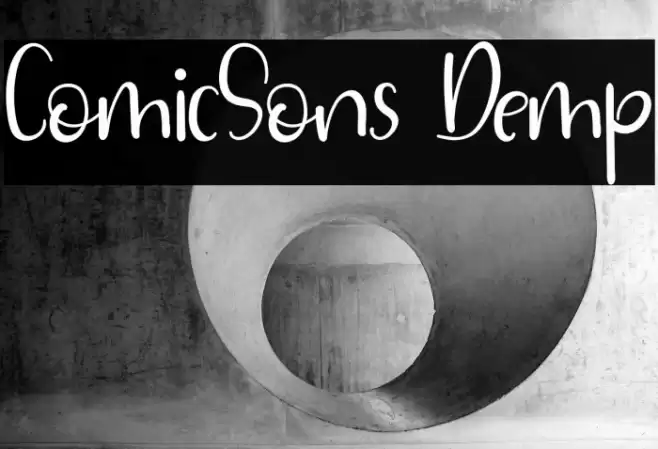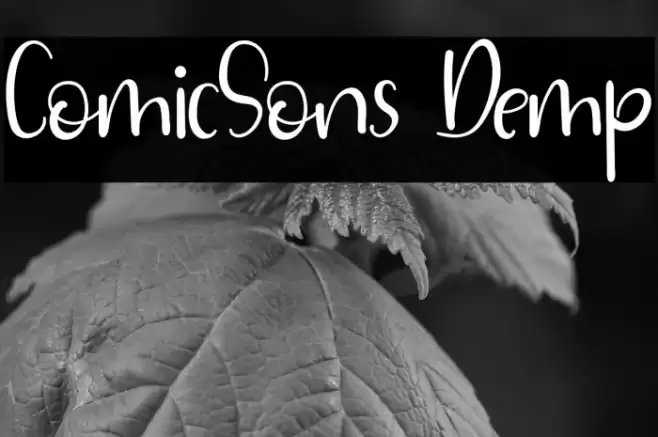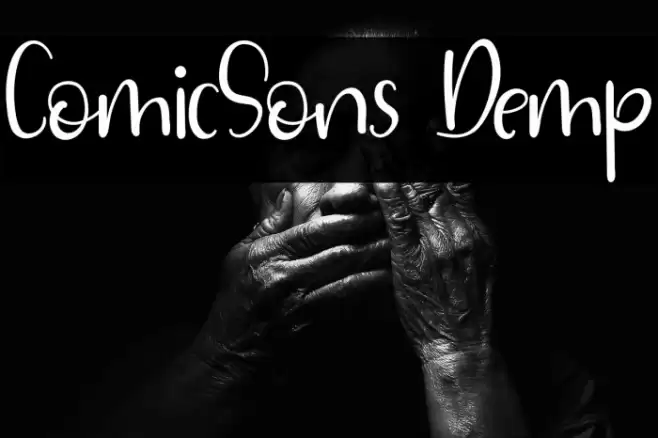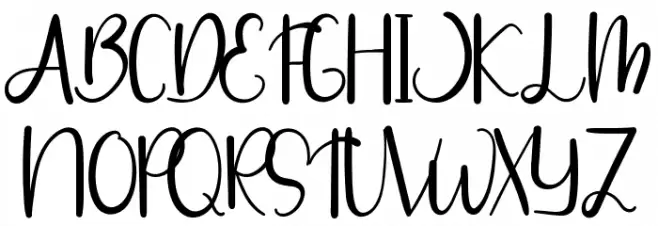
ComicSons Demp Font
ComicSons Demp Description
This font features a playful and whimsical style with a handwritten appearance. The letters are characterized by their flowing, cursive-like strokes that give a sense of movement and energy. The uppercase letters are bold and slightly exaggerated, while the lowercase letters maintain a consistent, lively rhythm. The numbers and special characters follow the same playful design, making the font suitable for creative and informal projects. The overall look is both modern and approachable, with a touch of artistic flair.
A playful, handwritten-style font with flowing, cursive-like strokes from Regular fonts.
- Proposed Projects: Ideal for greeting cards, children's books, playful branding, and creative posters.
- Overall Style: Playful, Modern
- Use Case: Logos, Headlines, Informal Text